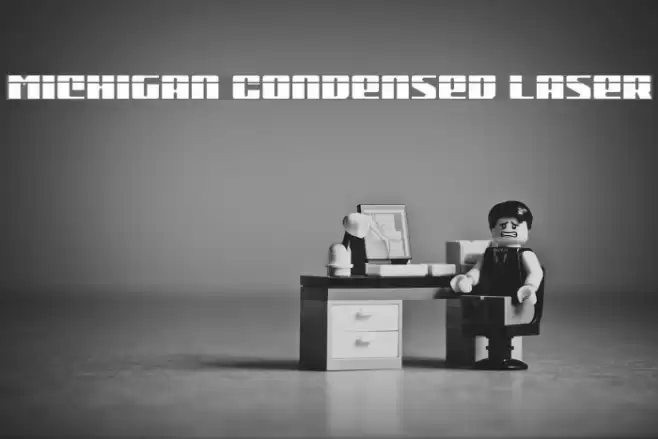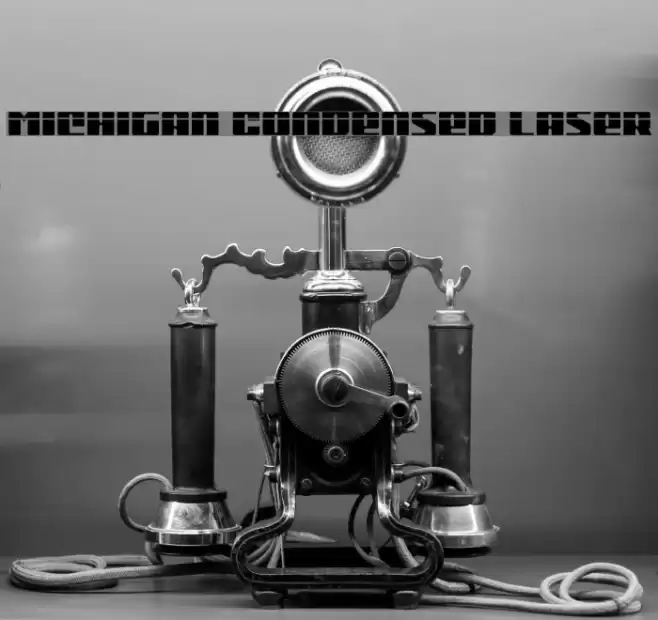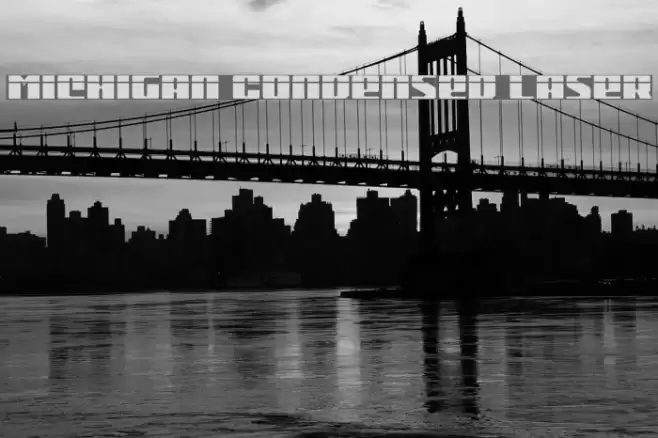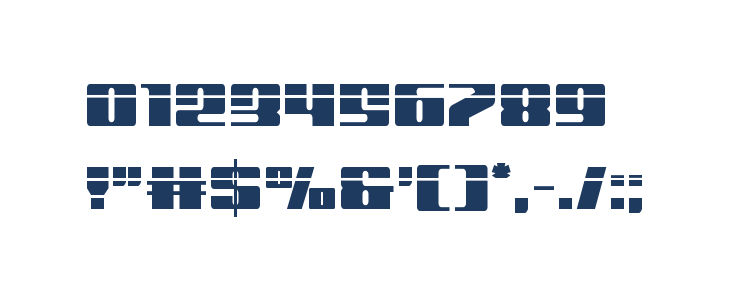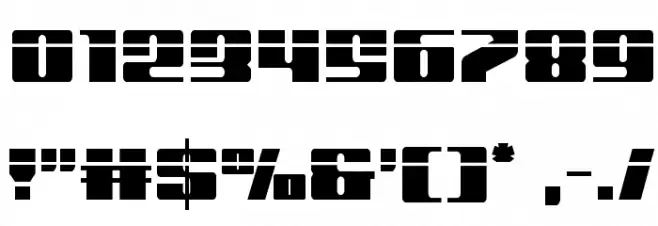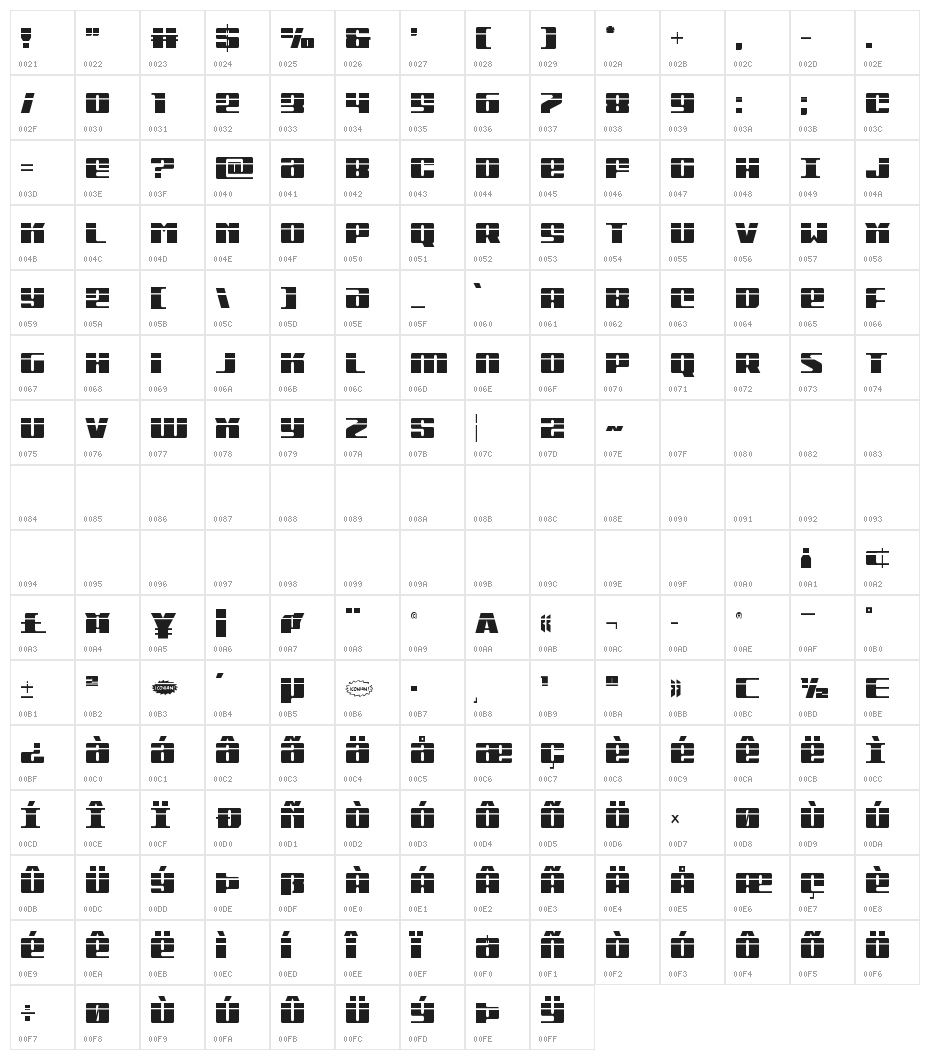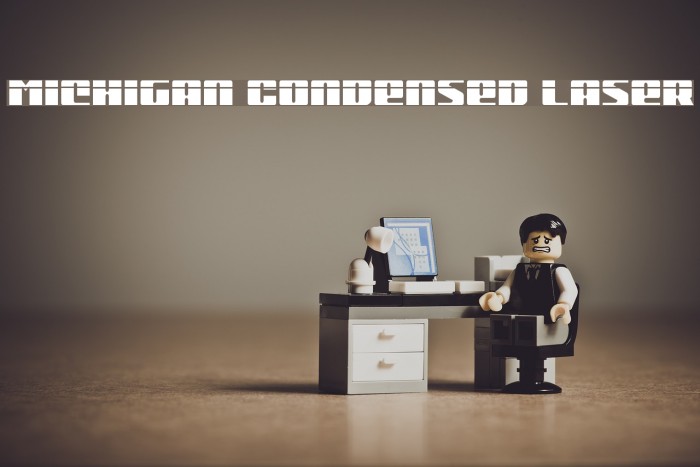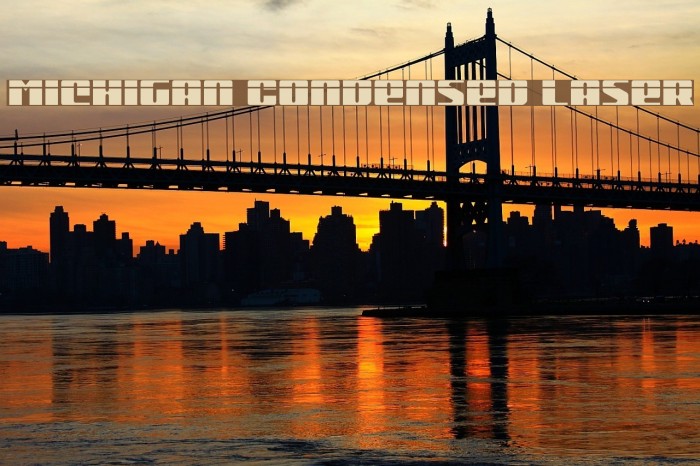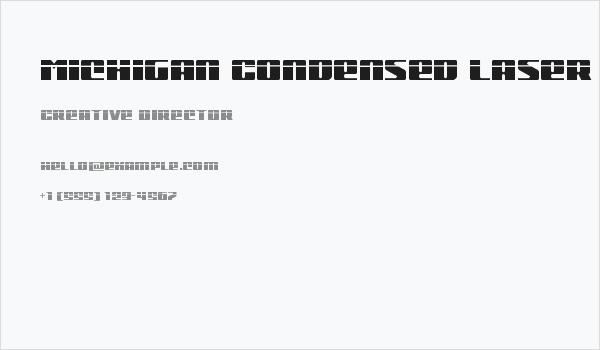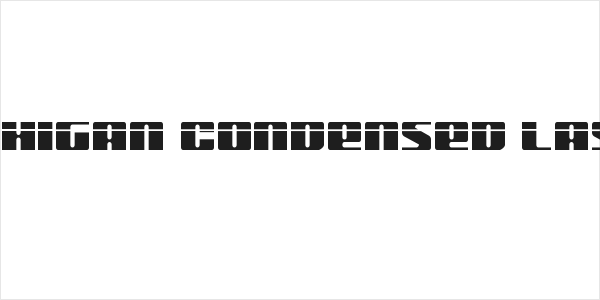
Michigan Condensed Laser Font
Michigan Condensed Laser Description
This font features a bold, geometric design with a condensed structure, characterized by its strong, block-like appearance. The letters are uniformly constructed with a consistent height and width, creating a cohesive and modern look. The sharp angles and straight lines give it a futuristic feel, while the solid fills emphasize its boldness. The font maintains a uniform stroke width throughout, contributing to its low contrast. Its distinct style makes it suitable for attention-grabbing headlines and display purposes, where a strong visual impact is desired.
A bold, geometric, and condensed font with a futuristic style from Uncategorized fonts.
- Proposed Projects: Ideal for posters, logos, branding, and any project requiring a modern, impactful typeface.